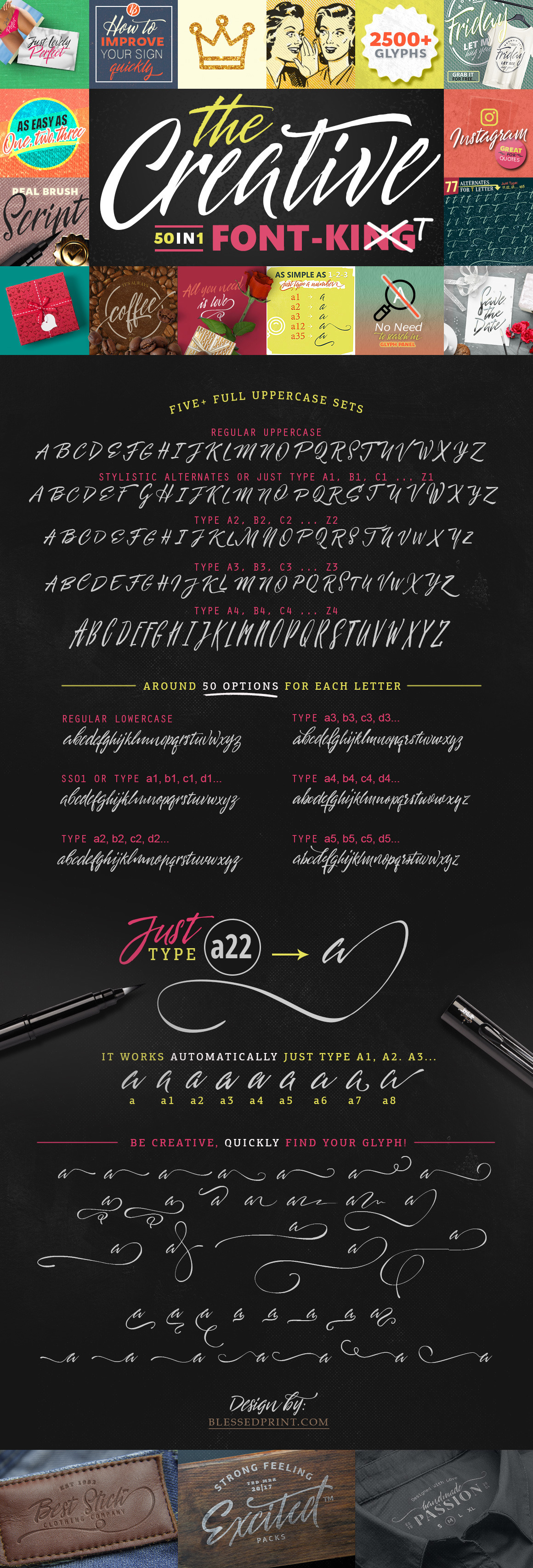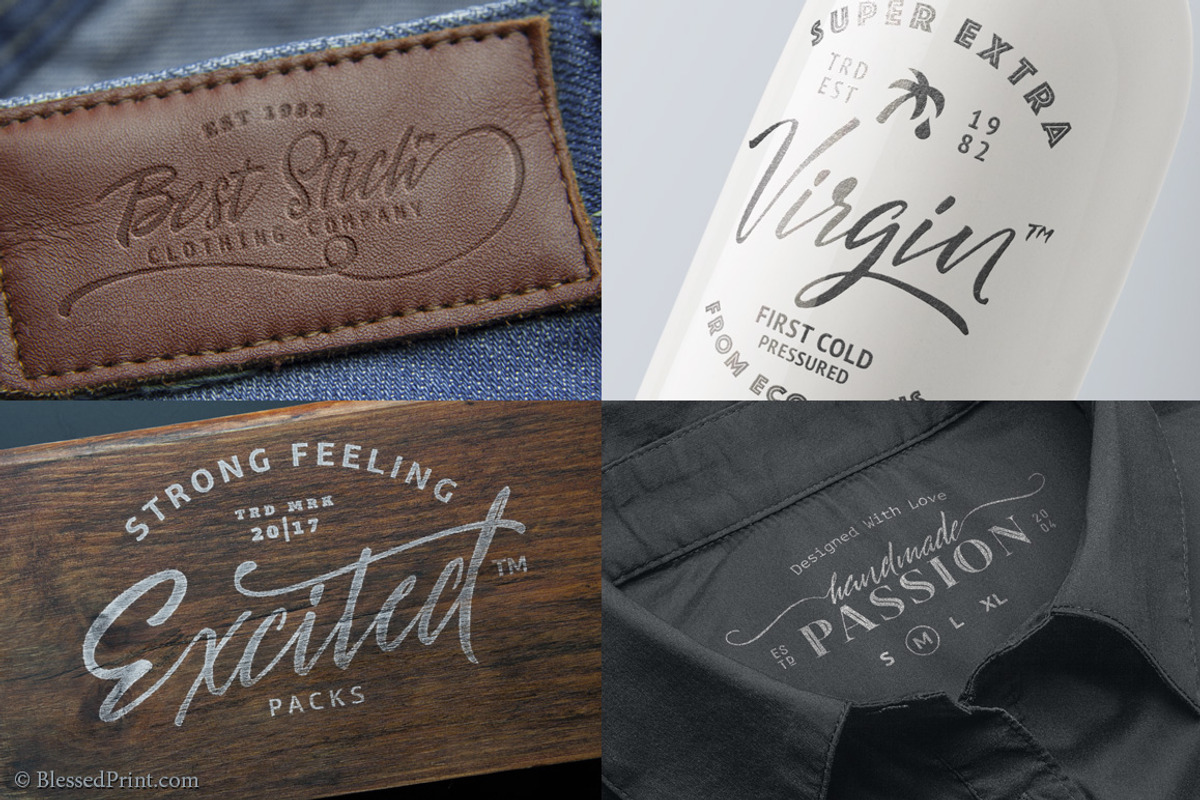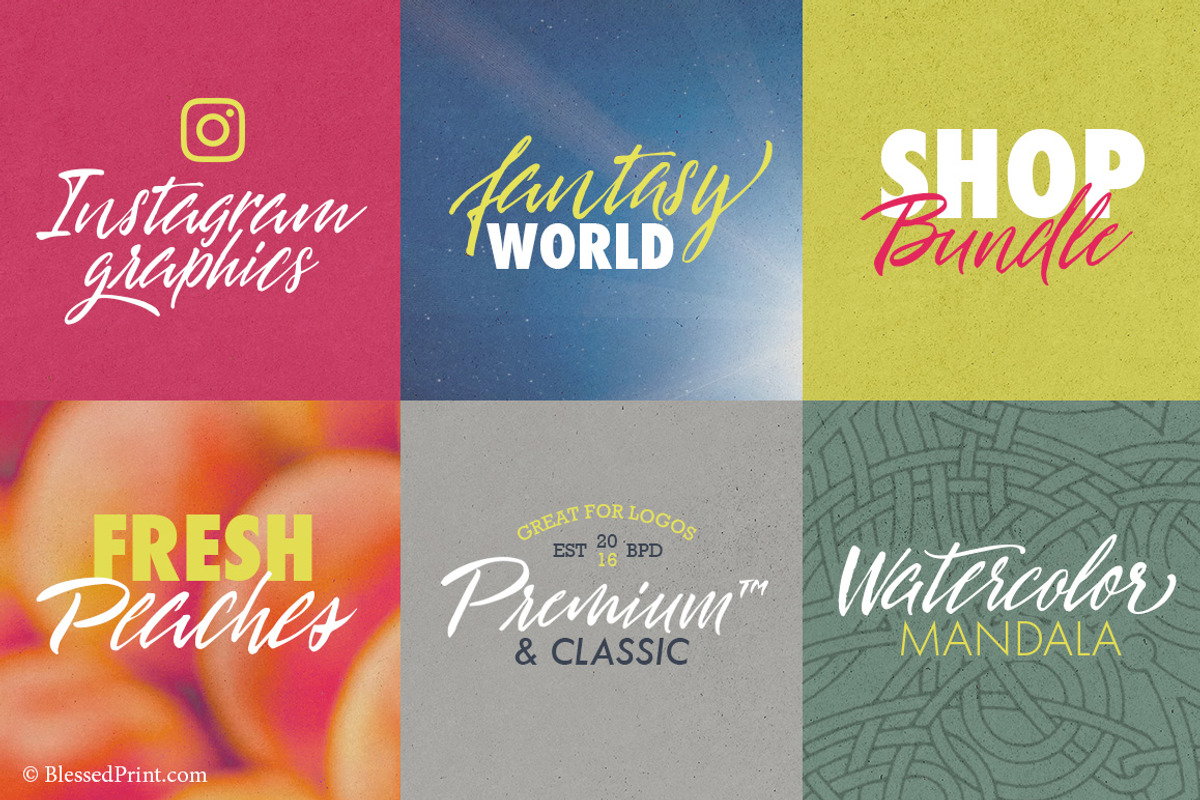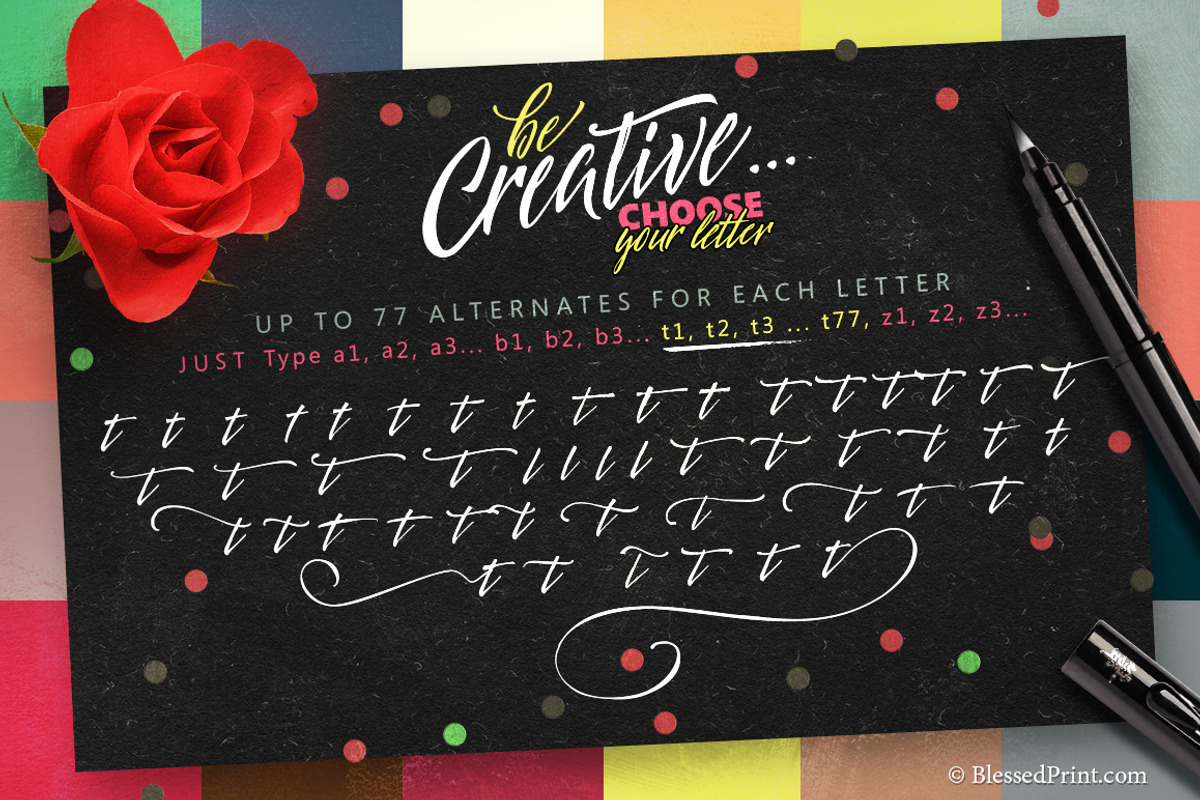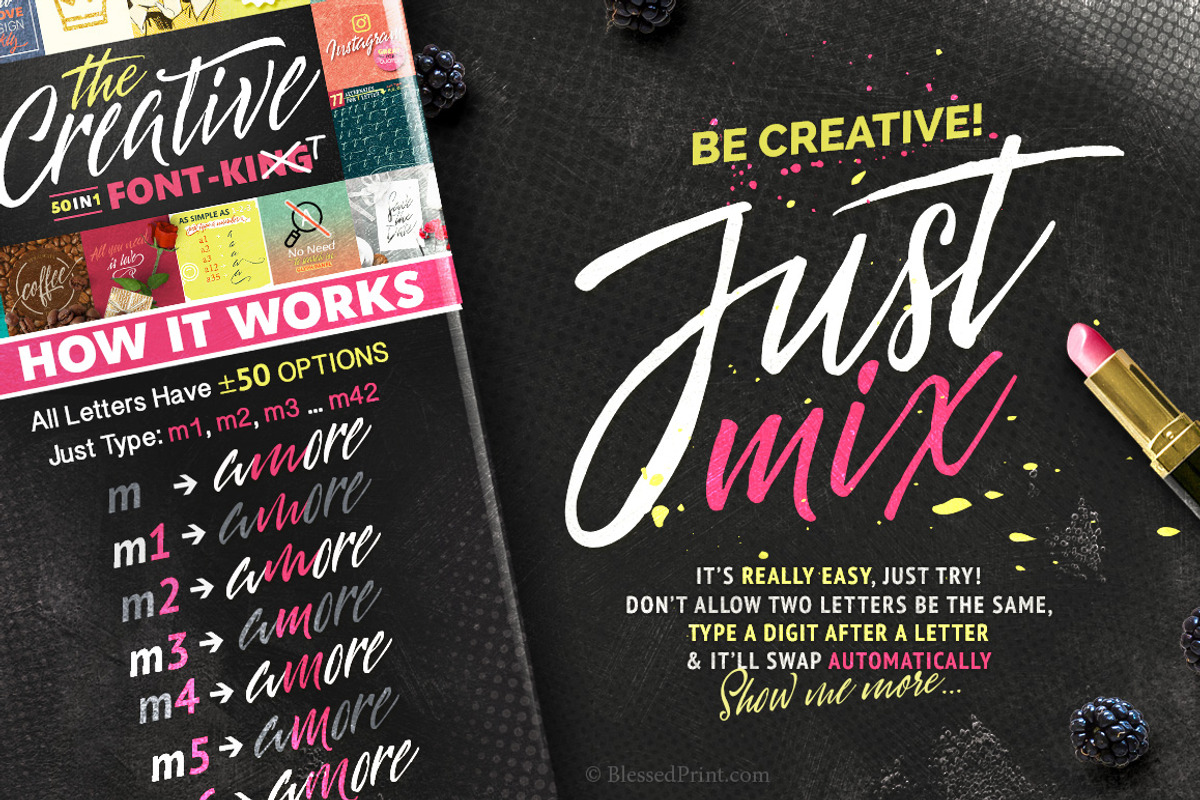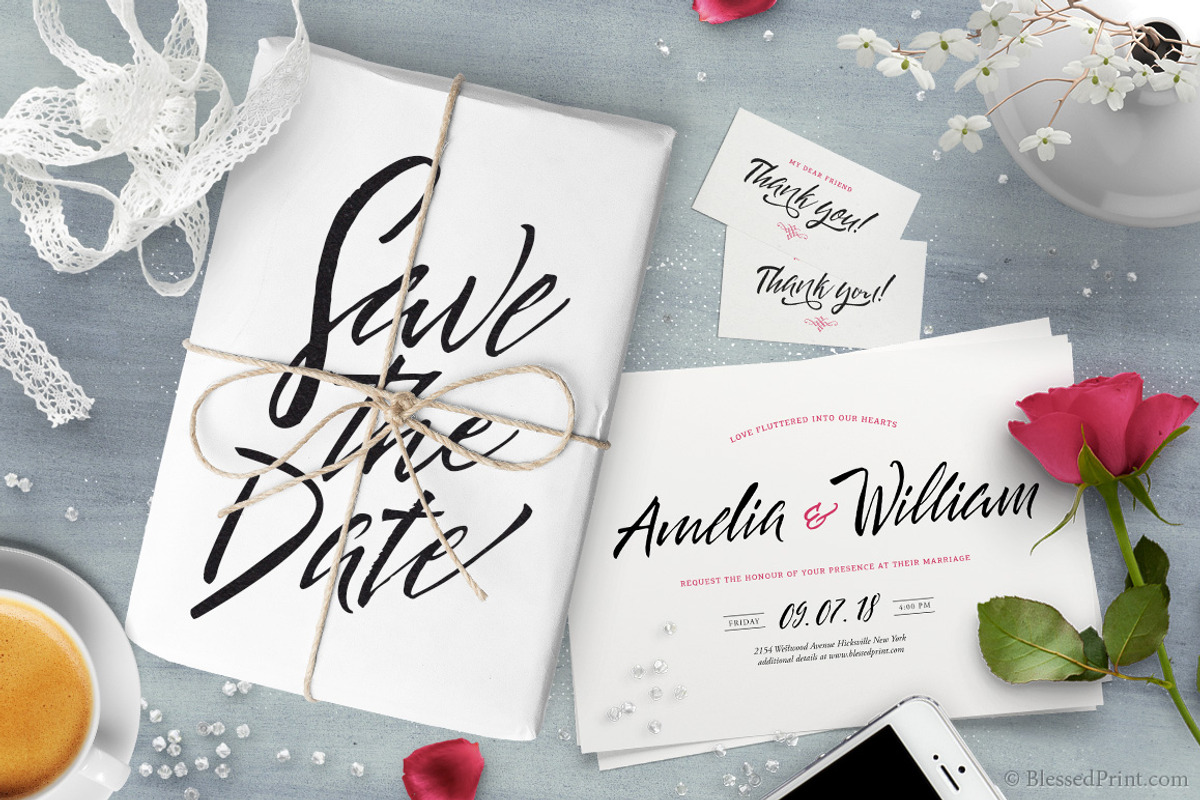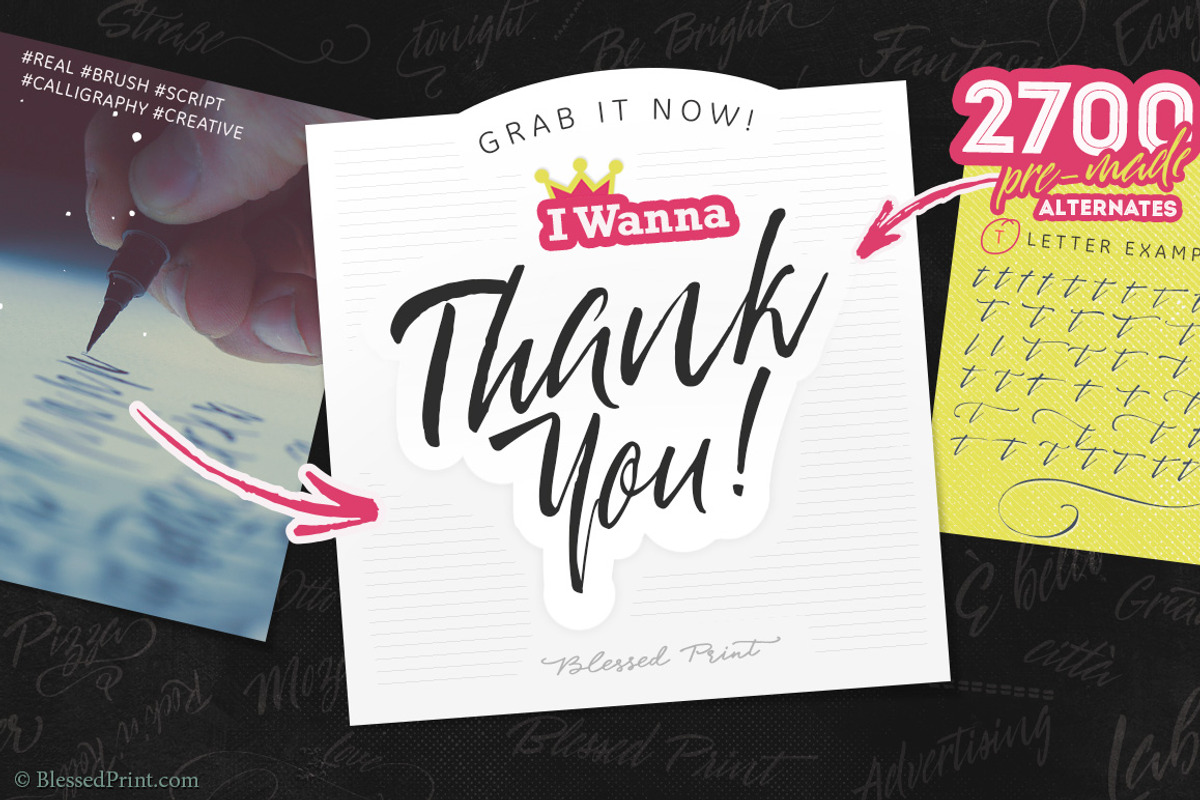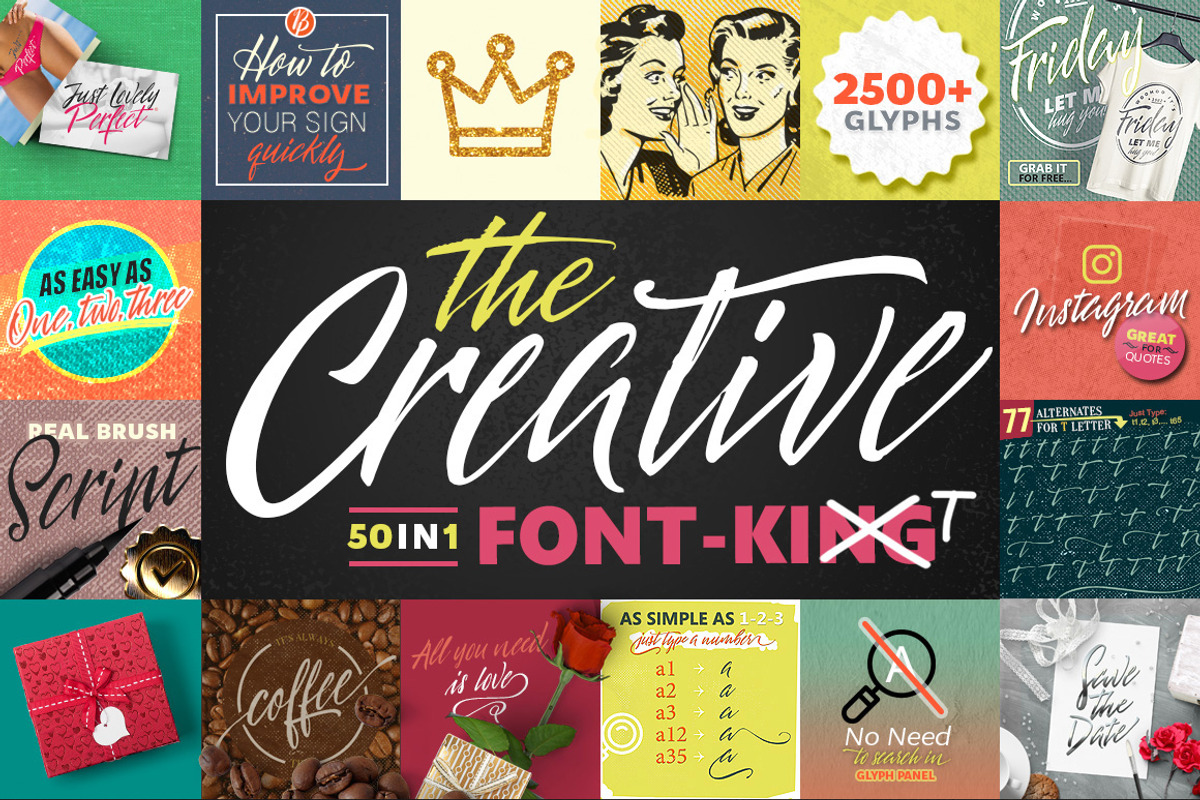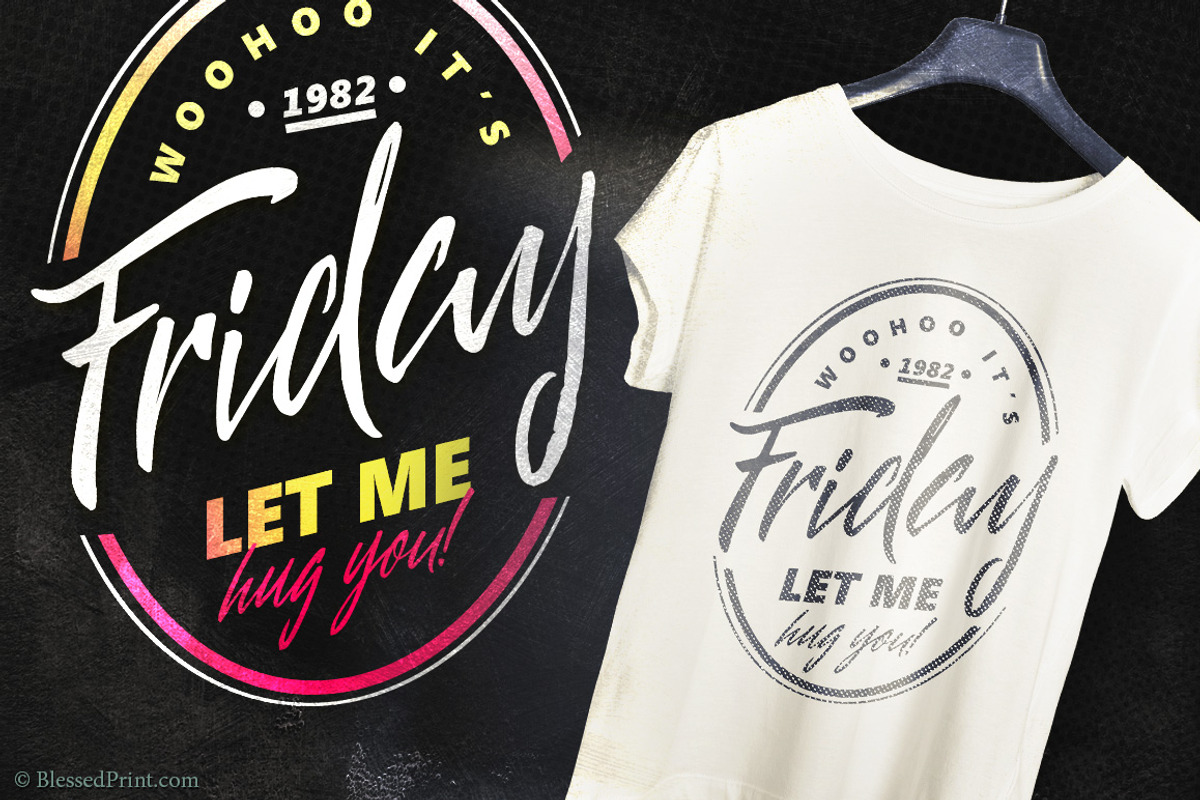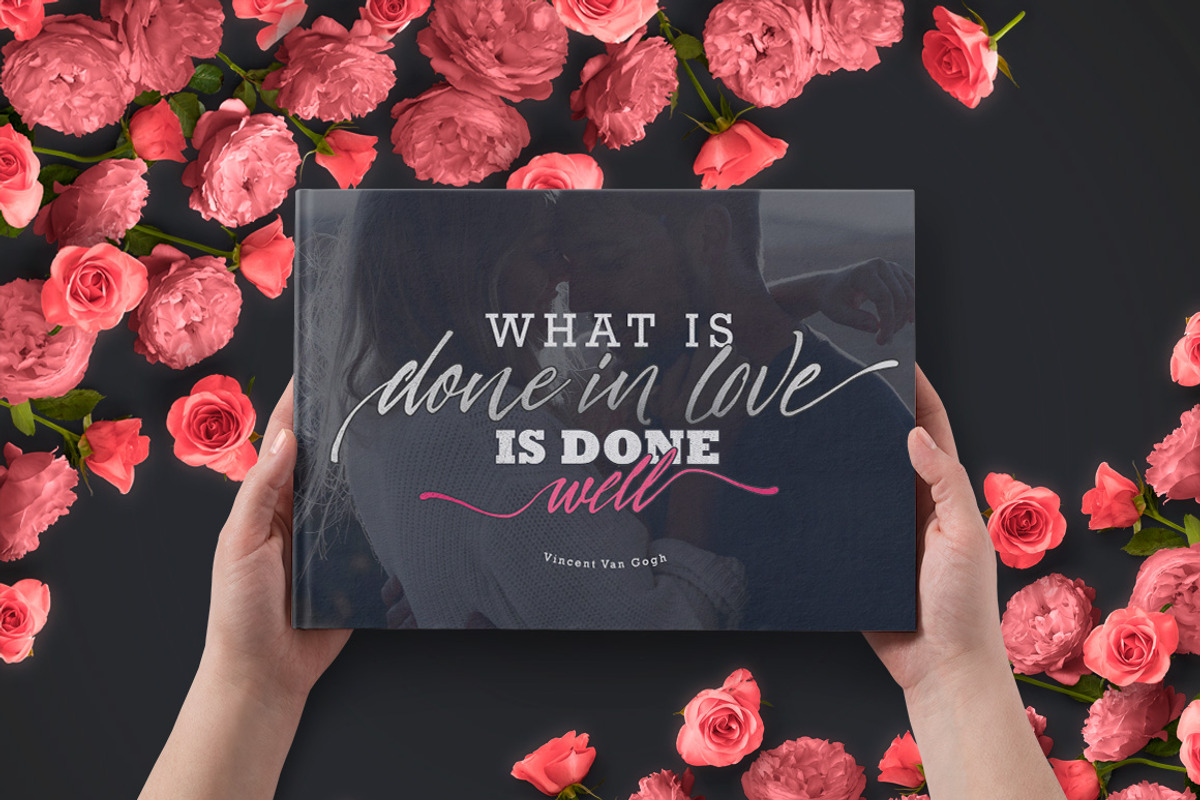
The Creative Font-Kit
Introducing THE CREATIVE font by BlessedPrint! Now you have a great chance to imitate brush-pen calligraphy with a single font. Let me show you how it works: https://youtu.be/zayH6wdOJBk
With The Creative opentype font you have unique ability quickly change alternates without necessary to open a Glyph panel or change fonts. Just type a1, a2, a3 ... a40 ... b1, b2, b3... etc... That is it! Normally when a calligrapher is writhing something all the letters are slightly or even completely different. Same here... Quickly change repeated letters with alternates and get a fantastic result. You must try it! Watch the video!
HOW IT WORKS? EASILY! REALLY! As 1-2-3...
Just type a number after any letter and you will see how them switch to alternates without any effort. You still can use Glyph panel, but typing numbers are much faster... You will love it as I do. No necessary to switch to a panel as it always stops creative process. Now you can see updates on the go! It will save a tone of your time!
For example on the main screen THE CREATIVE is typed as "t31he6 C2re3a1t14iv1e" It means that i use for t: for t#31, t#14 and for e: e#6, e#3, e(regular) and so on... Mix your letters with hundreds of alternates. BTW, letter t has 77 options!
MULTILINGUAL Croatian, Czech, Danish, English, Estonian,French, German, Italian, Portuguese, Romansh, Norwegian, Polish, Slovak, Slovenian and more...
GREAT FOR VARIOUS PURPOSES
- logos
- quotes
- websites
- wedding invitations
- stationary
- scrapbooking
- catchwords and others